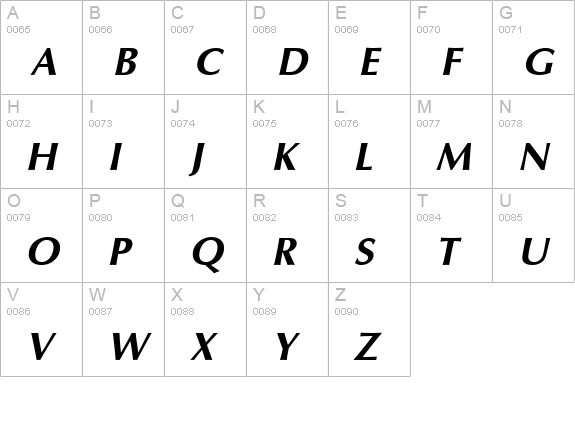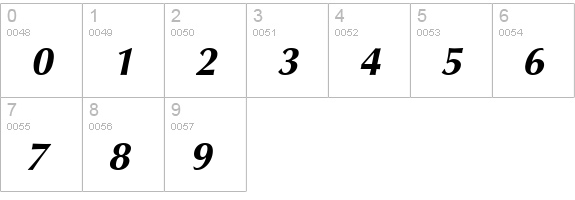
Ottawa Bold Italic Font Details
Ottawa Bold Italic is a strong, high-contrast, italic variant in the Ottawa typeface family \xE2\x80\x94 well suited to headlines, attention-grabbing titles, and strong calls-to-action.
Introducing Ottawa Bold Italic, a striking and dynamic font designed to make a bold statement. This modern typeface exudes confidence and sophistication with its sleek lines and strong presence. Perfect for headlines, posters, and other design projects that require a touch of boldness and style. What sets Ottawa Bold Italic apart is its unique combination of boldness and elegance, making it a versatile choice for a wide range of design applications. Whether you're looking to create eye-catching graphics or professional-looking documents, this font is sure to make a lasting impression. And the best part? Ottawa Bold Italic is available for free download at FontsMarket.com. So go ahead and elevate your designs with this striking font that is sure to stand out from the crowd. Download Ottawa Bold Italic today and unleash your creativity!